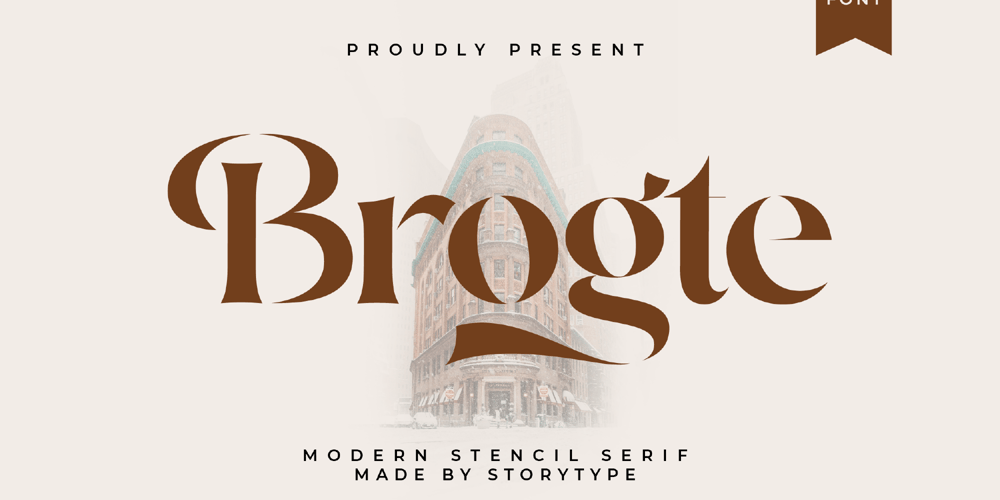
Brogte
Brogte font
Brogte Font Family was designed by Heru Utama Putra and published by Letterena Studios. Brogte contains 2 styles and family package options. Brogte is a modern and classic serif font with a unique style and fancy look. This typeface is perfect for an elegant & luxury logo, book or movie title design, fashion brand, magazine, clothes, lettering, quotes, and so much more.